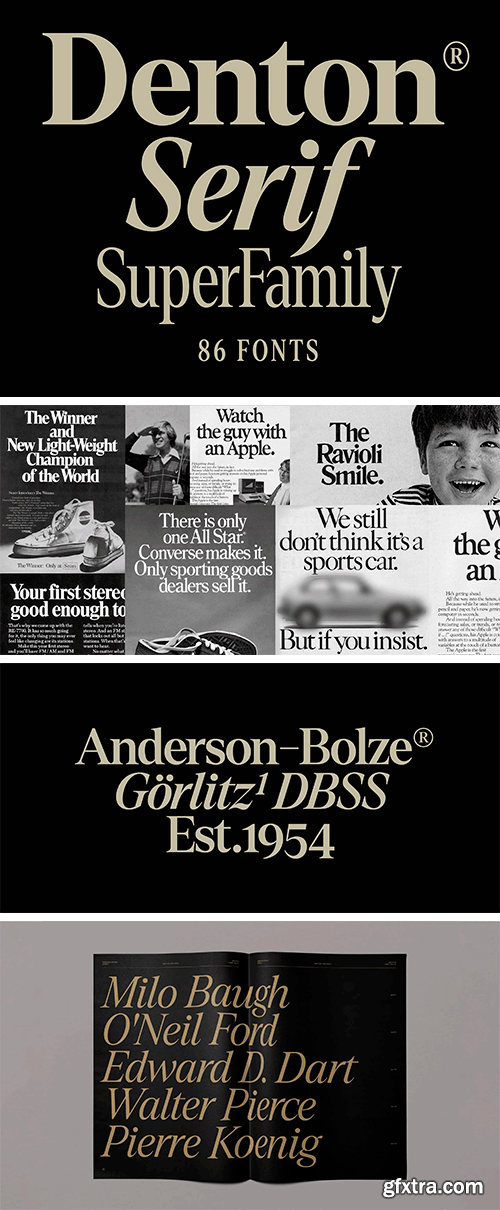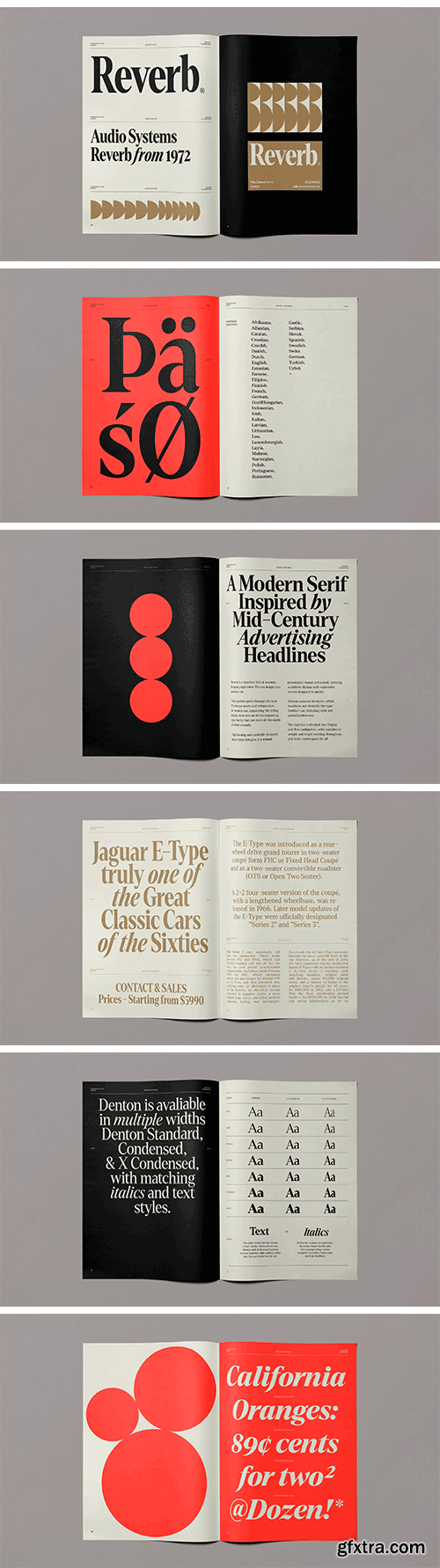
Denton Serif Superfamily
Denton is a typeface full of warmth, bringing expressive 70s era design into the 21st century. Inspired by the bold, tightly set headline serif titling from this liberated era, Denton encompasses the style into a modern superfamily that can meet all the needs of todays brands. Tight kerning, the uniform rhythm & carefully designed letter interaction give Denton a warm, refined personality.
Denton comes in 86 styles, including weight and width variables, display and text subfamilies and true italic counterparts. Type design was liberated in the 1950s, with the birth of phototypesetting. The evolution signalled the end of the limitations of traditional physical lead or metal type handling - allowing designers to shake off the restraints of unyielding metal letters and their standard lead sizes. Type could be any size, with any spacing leading to a rush of new creative opportunities. This was a golden era, it was full of energy as designers revelled in the freedom brought by new technology. A new design aesthetic emerged, super-tight kerning, overlapping serifs and carefully refined letter interactions became commonplace throughout the following decades. This warm, free, distinct feeling gave us the core from which Denton is built.